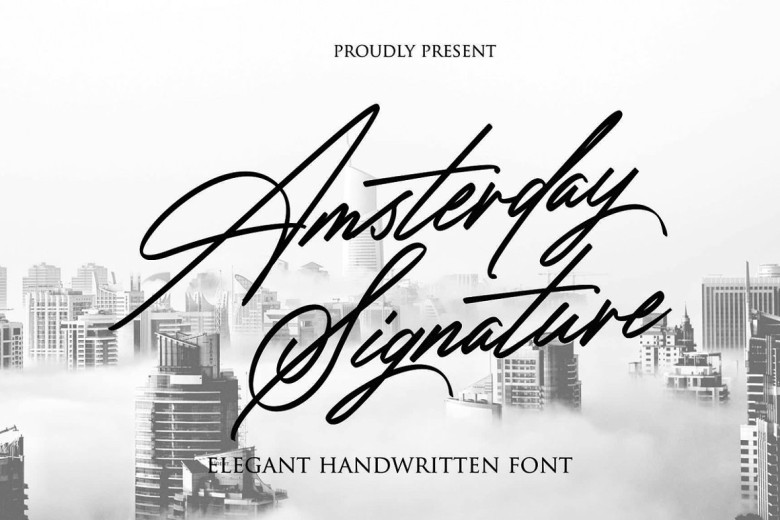
Amsterday Signature Font
Now available for purchase, our exquisite “Amsterday” font will enthrall you with its sophistication and elegance. Drawing inspiration from Amsterdam’s classic architecture and charming atmosphere, it features old world charm with modern grace for an eye-catching result.
The “Amsterday font” features an exquisite and sophisticated design that captures the spirit of Amsterdam in each stroke. Its elegant curves exude class and grace; making this font an excellent option for many design projects.
Amsterday Signature Script Font